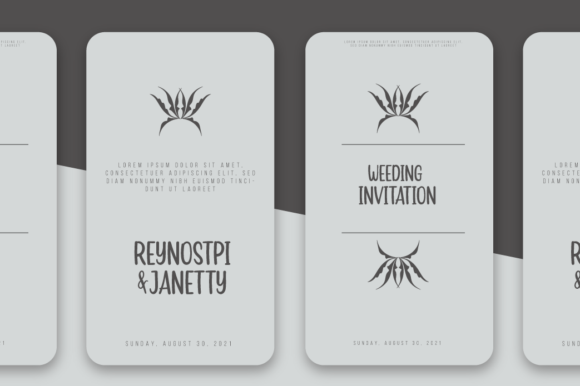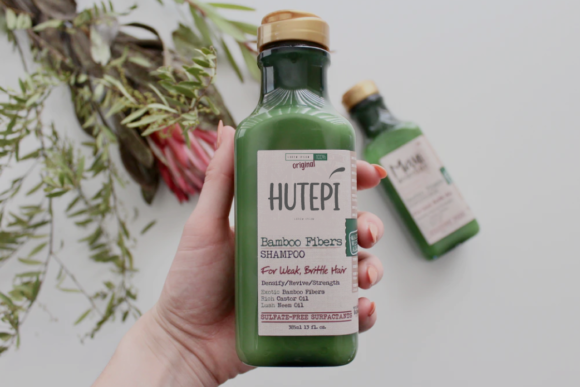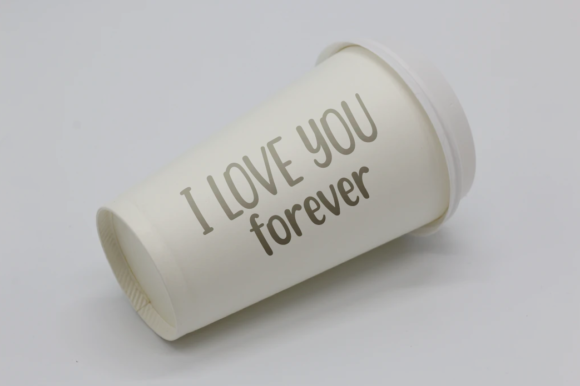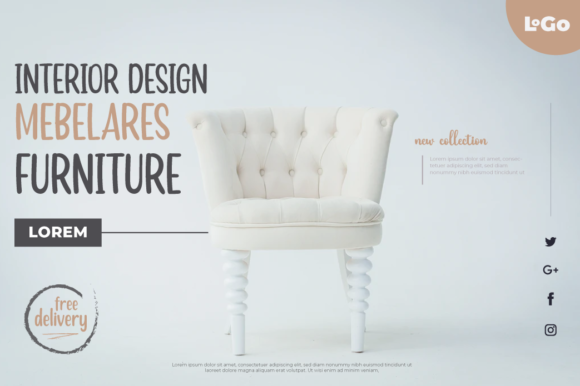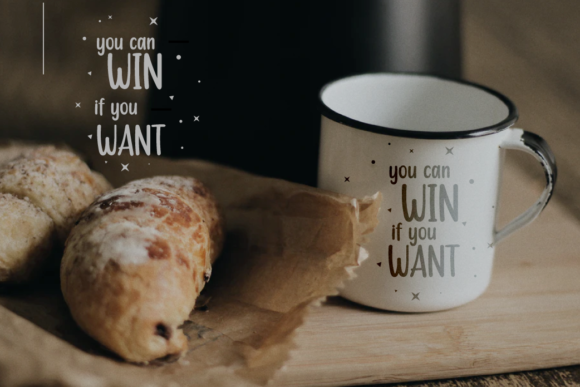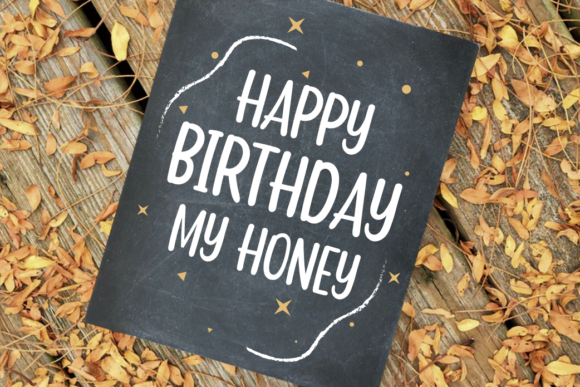
The Magic of Bewitched Font: A Designer’s New Best Friend
I’ll never forget the time I was working on a whimsical craft project, pouring my heart and soul into it, but struggling to find the perfect font to match its playful vibe. My client was counting on me to deliver a design that would make their brand stand out, but I was stuck. That’s when I stumbled upon Bewitched Font, a simple yet adaptable handwritten font that changed the game. In this article, I’ll share my experience with Bewitched Font, its features, and how to make the most of it in your designs.
An Honest Review of Bewitched Font
- ✨ Versatility: Bewitched Font is incredibly versatile and can be matched with a wide range of projects, from crafting and DIY to branding and advertising.
- ✅ Readability: The font is clear and easy to read, making it perfect for body text and headings.
- 💫 Aesthetics: Bewitched Font has a unique, whimsical charm that adds a touch of magic to any design.
While Bewitched Font is an excellent choice for many projects, there are a few things to keep in mind:
- 🤔 Limited formal variations: Bewitched Font has a distinct informal, handwritten feel, which might not be suitable for very formal or corporate designs.
- ⚠️ Glyph coverage: As with any font, some special characters or glyphs might be limited or require additional installation.
A Practical Guide to Using Bewitched Font
- Experiment with OpenType features like ligatures and stylistic alternates to add more flair to your text.
The Story Behind Bewitched Font
Bewitched Font was created with the intention of bringing a touch of magic to everyday designs. Its designer aimed to craft a font that was both simple and adaptable, perfect for a wide range of projects. The result is a font that feels both whimsical and approachable.
Q: What type of projects is Bewitched Font best suited for?
A: Bewitched Font is incredibly versatile and can be used for a wide range of projects, including crafting, DIY, branding, and advertising.
Q: Does Bewitched Font support OpenType features?
A: Yes, Bewitched Font supports OpenType features, including ligatures and stylistic alternates, which can add more flair to your designs.